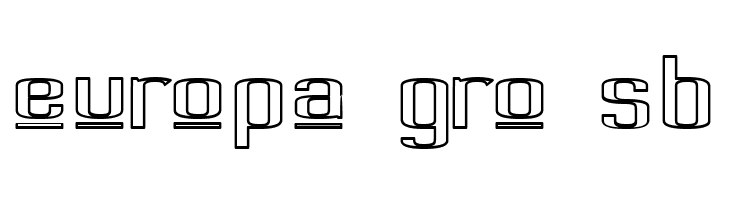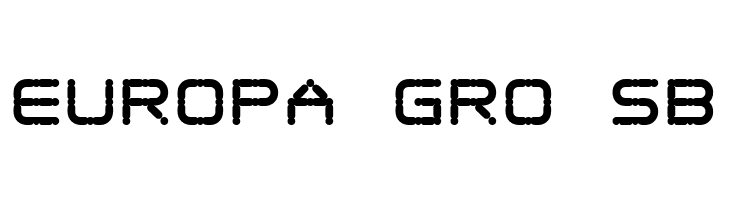
A bold, modern font with rounded edges and geometric structure.
A futuristic, geometric font with sharp angles and a blocky structure.
A bold, futuristic font with geometric shapes and a modern, industrial aesthetic.
A geometric outline font with a modern and structured design.
A futuristic, dotted font with a digital and modern aesthetic.
A futuristic, geometric font with bold, structured characters.